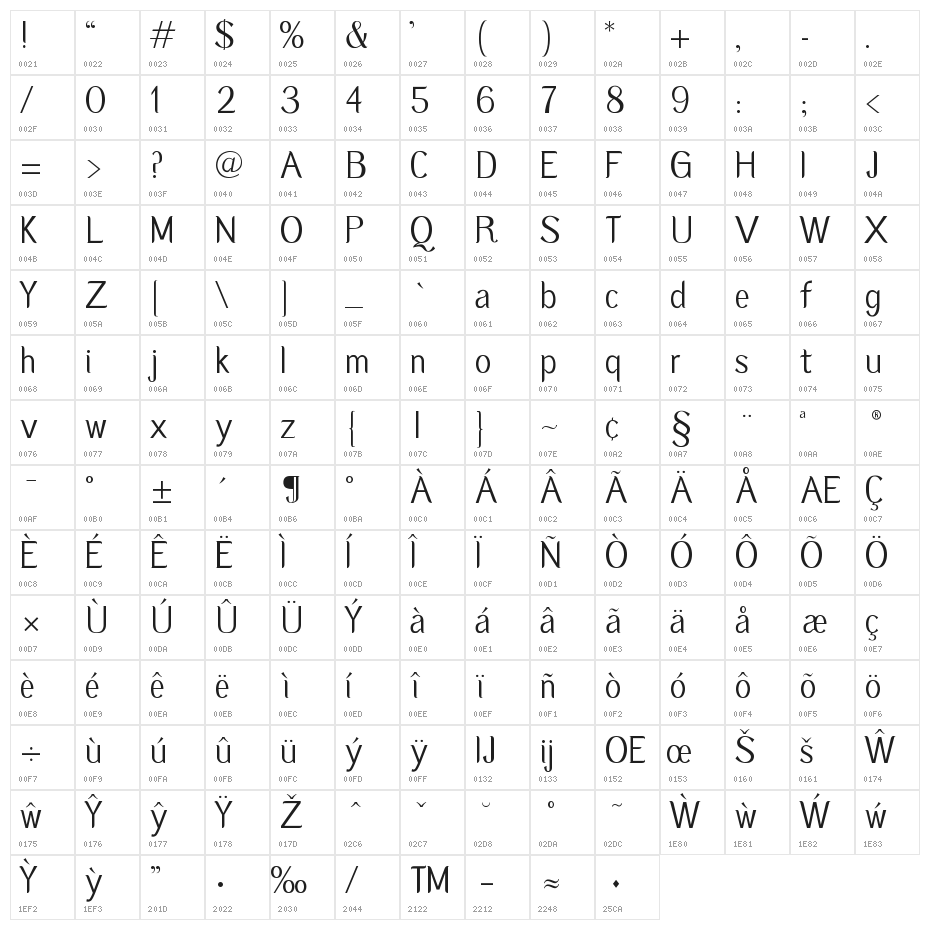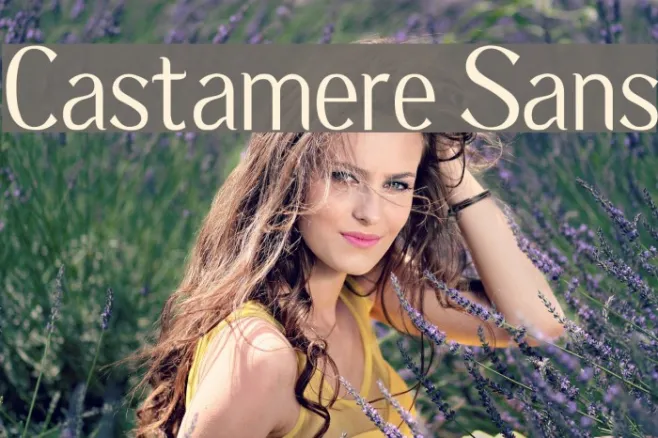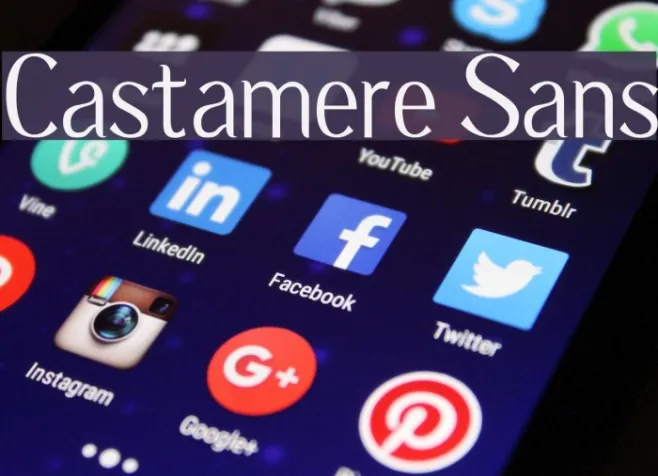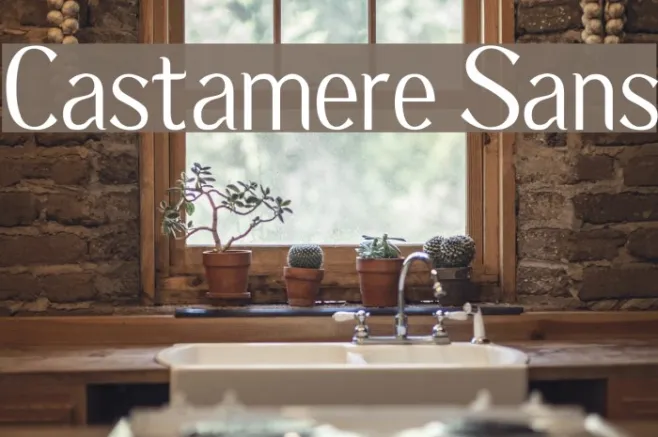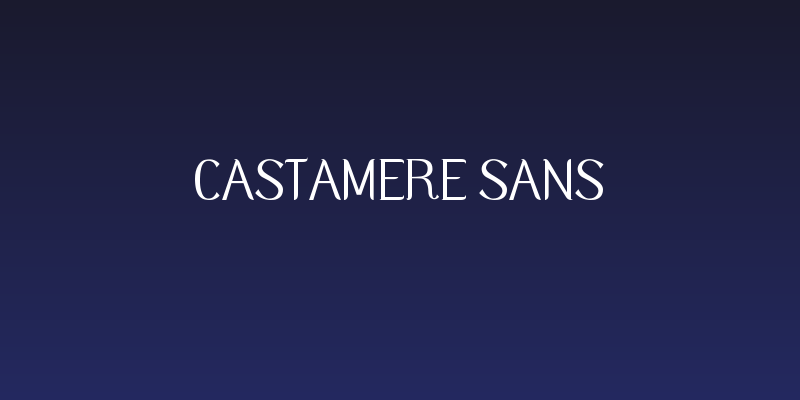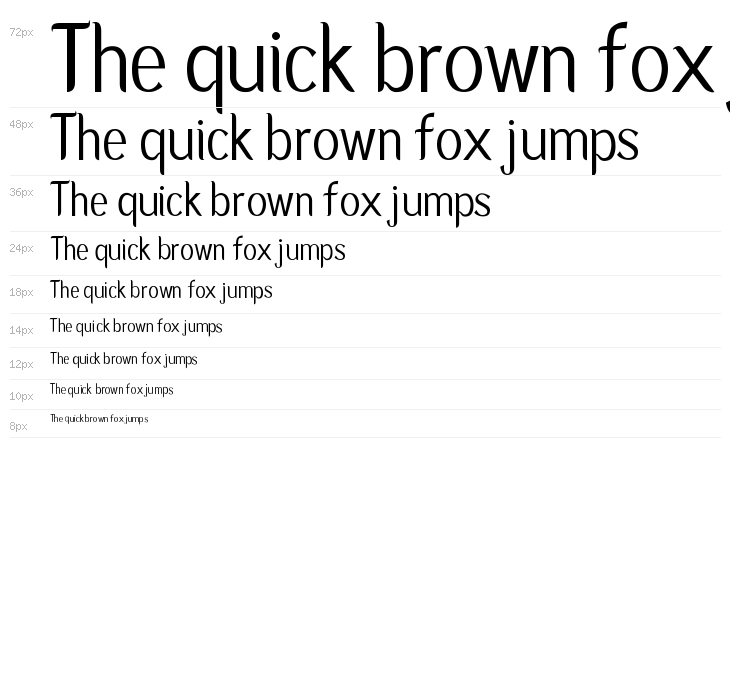
Castamere Sans Font
Castamere Sans Description
This font features a clean and elegant design with a modern twist. The uppercase letters are tall and slightly condensed, giving a sophisticated appearance. The lowercase letters maintain a consistent style with smooth curves and a balanced structure. The numerals are clear and easy to read, making them suitable for various applications. Special characters are well-integrated, maintaining the overall aesthetic. The font's design is versatile, making it suitable for both digital and print media.
| Proposed Projects | Ideal for branding, editorial design, advertising, and web design projects. |